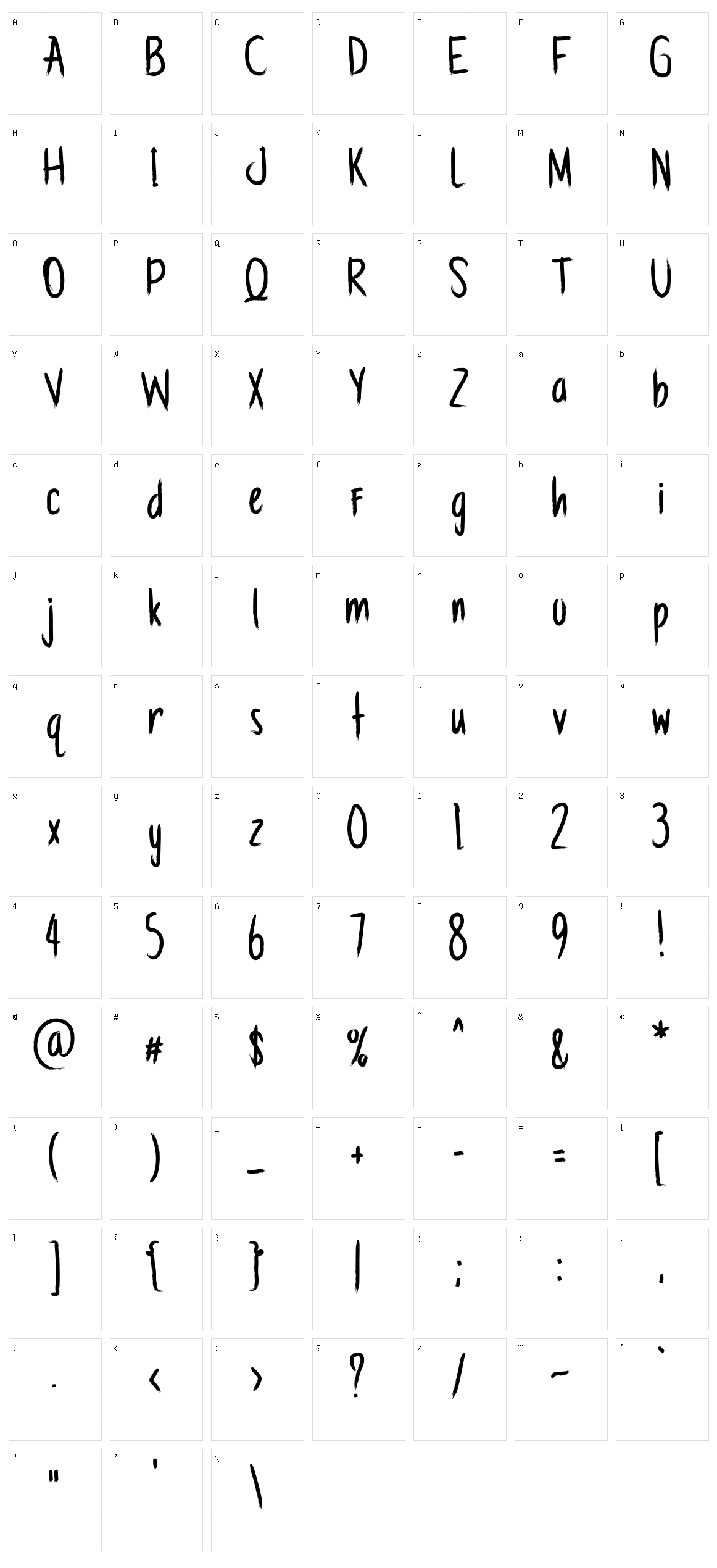
The free font Gabrush is carefully designed by Eko Samp, showcasing a thoughtful balance of creativity and usability and falls under the Script font style. When you download the ZIP file, it contains only 347.82 KB of font files, making it lightweight and quick to download. Please review the license details below to understand permitted usage and distribution rights. If license information is not available, we recommend using this font for personal projects only or contacting the author directly for commercial usage permissions.